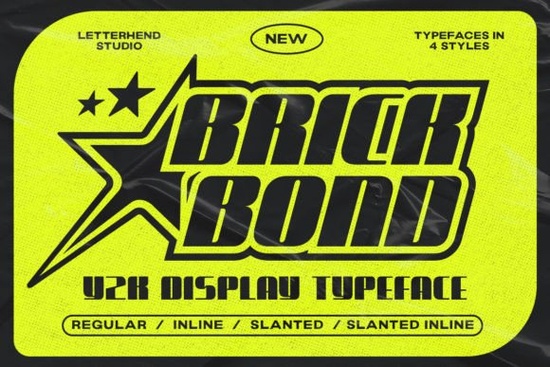
Brick Bond Font is a unique typeface that blends the nostalgic Y2K aesthetic with a modern, futuristic twist. Designed for those who want to make a statement, this font stands out with its bold and dynamic shapes. Whether you're working on a logo, social media post, or a print project, Brick Bond adds a fresh and eye-catching element to your design work.
If you're looking for a font that can bring energy and style to your projects, Brick Bond Font is an excellent choice. It includes both an outline and slant version, giving you more flexibility in how you use it. The clean lines and strong visual presence make it ideal for headlines, banners, and other key design elements that need to grab attention.
For designers and creatives, finding the right font can be a game-changer. Brick Bond Font offers a versatile option that works across multiple platforms and mediums. Its distinct look helps your work stand out without being overwhelming. Whether you're creating digital art, branding materials, or print-on-demand products, this font can enhance your creative output.
What Makes Brick Bond Font Unique?
One of the standout features of Brick Bond Font is its balance between retro and modern styles. The Y2K influence gives it a nostalgic feel, while the futuristic touch ensures it feels current and relevant. This combination makes it suitable for a wide range of design applications.
The font's bold structure ensures that it commands attention, making it perfect for titles and headings. Its outline and slant versions add variety, allowing you to experiment with different visual effects. These variations can help you achieve the exact look you're going for in your design projects.
Whether you're designing for a website, a poster, or a product label, Brick Bond Font provides a professional and stylish option. It's easy to read while still maintaining a strong visual identity, which is essential for effective communication in design.
How to Use Brick Bond Font in Your Projects
Using Brick Bond Font is straightforward, and it works well in both digital and print formats. For web projects, it can be used as a display font to highlight important text. In print, it adds a bold and modern edge to any layout.
For those who enjoy handcrafted or DIY projects, this font can be incorporated into stationery, greeting cards, or custom t-shirts. Its versatility makes it a valuable addition to any designer's toolkit. You can also pair it with other fonts to create a balanced and cohesive design.
When choosing a font, consider the tone and purpose of your project. Brick Bond Font is best suited for designs that require a strong visual impact. If you're looking for something more subtle, you might prefer a different typeface. However, for bold and attention-grabbing designs, this font is a solid choice.
Brick Bond Font is a powerful tool for anyone looking to add a modern and stylish touch to their designs. With its bold shape and versatile versions, it offers a range of possibilities for creative professionals and hobbyists alike.
Consider adding this font to your collection if you're looking for a fresh and dynamic option. It's easy to use, visually appealing, and can elevate your design work in a meaningful way.
Whether you're a designer, a crafter, or a small business owner, Brick Bond Font can help you express your creativity in a unique and impactful way.